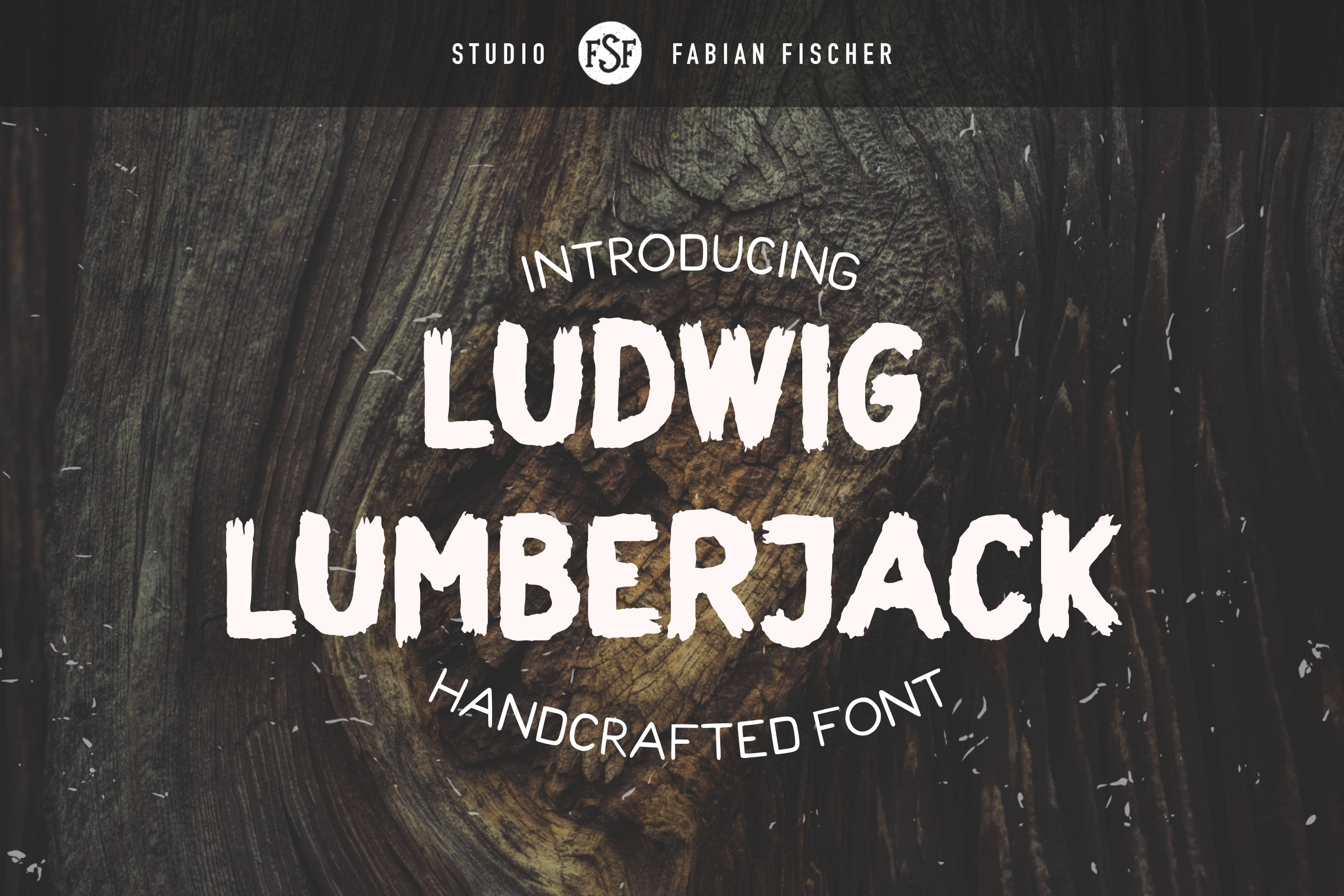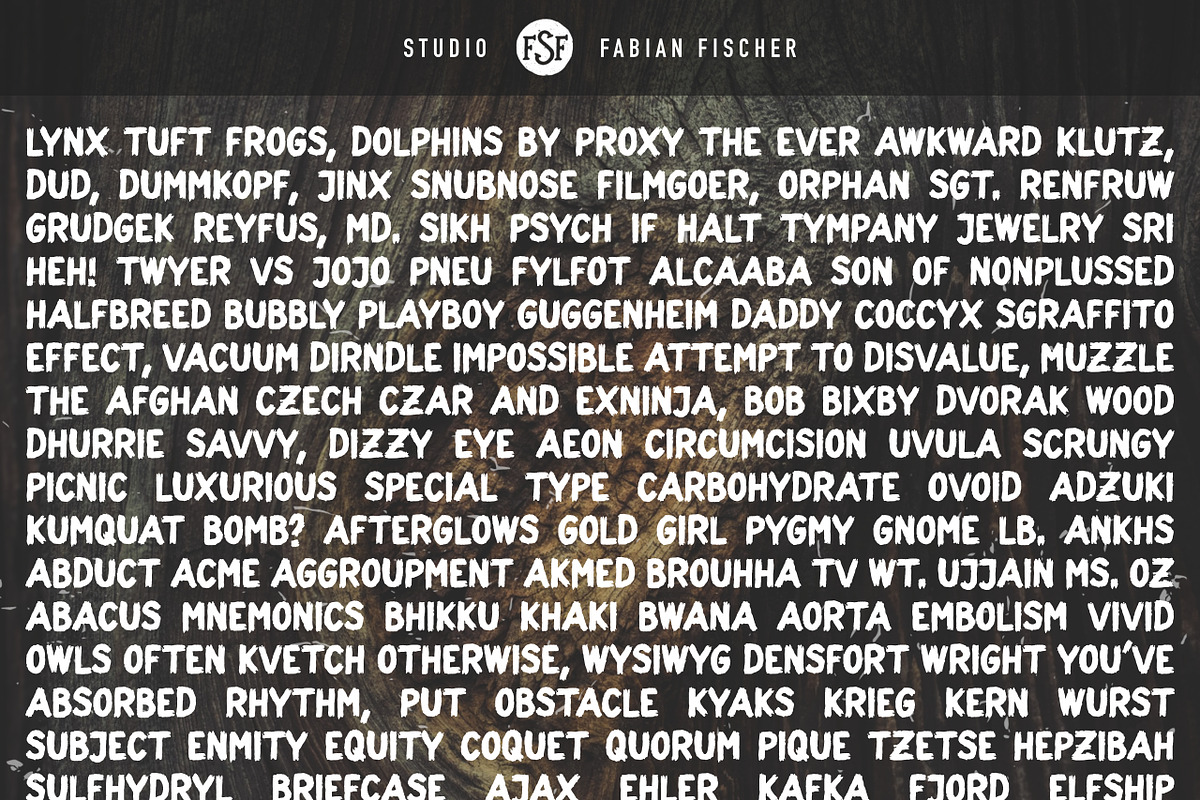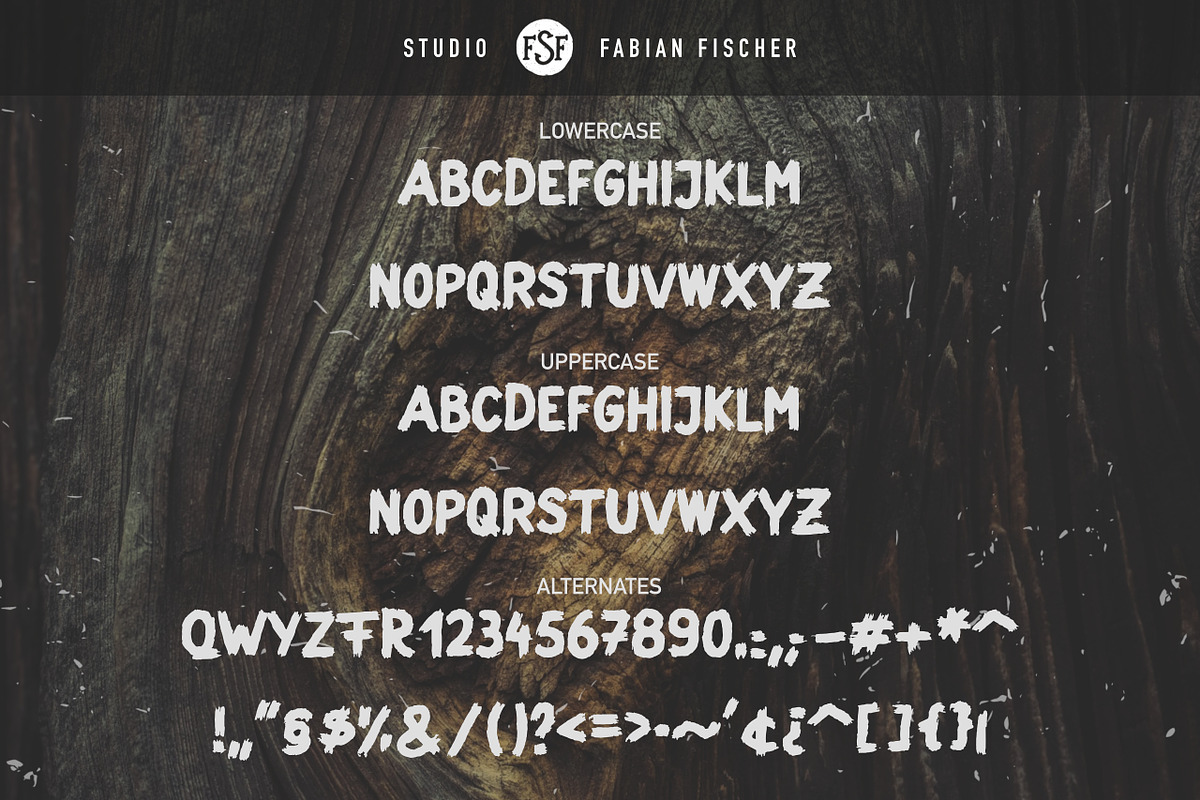
Ludwig Lumberjack - Handmade font
Ludwig Luberjack is a handcrafted typeface inspired by wood, trees and scratchy textures. As a display typeface Ludwig Lumberjack is suitable for logotypes, signs, posters, product designs, print and digital ads, branding and many more.